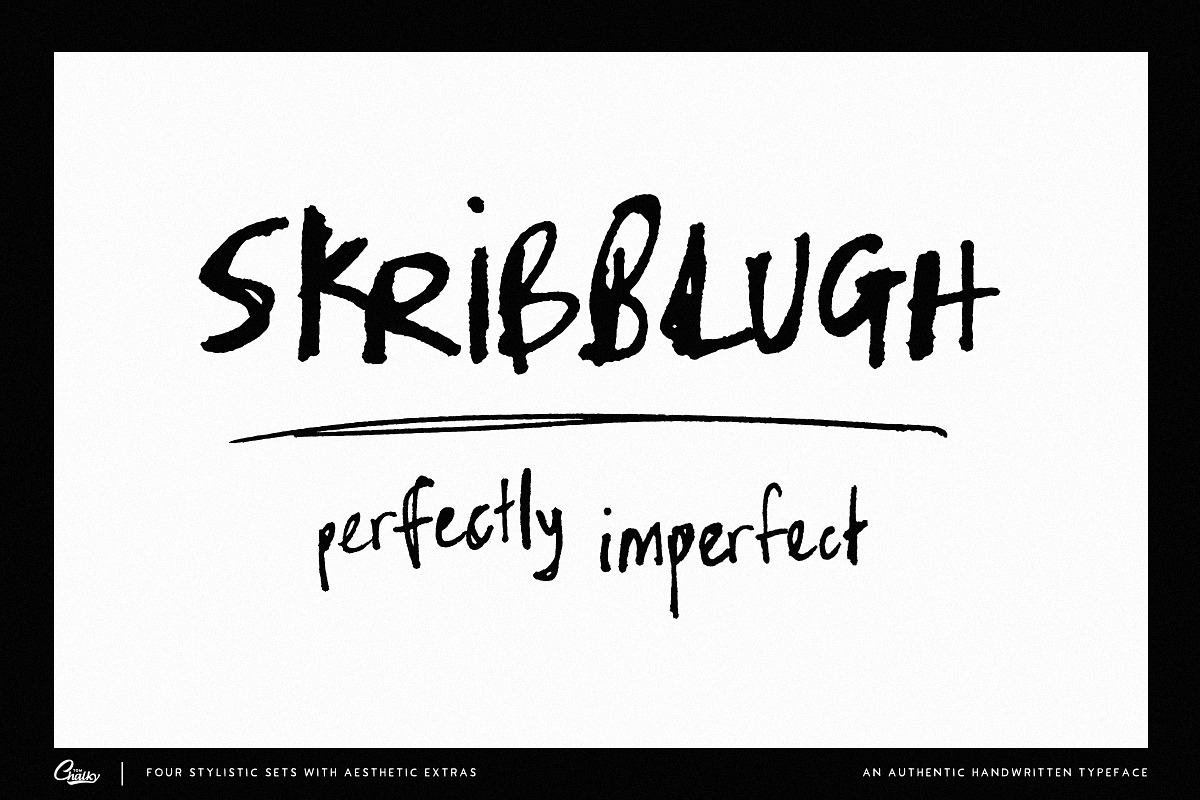
SKRIBBLUGH Font Family Free Download is a dynamic and playful font family that offers a mix of bold, hand-drawn styles with a unique, quirky personality. This font family is perfect for branding, posters, social media content, logos, and creative projects that need a fun and expressive vibe.
With multiple weights and variations, SKRIBBLUGH Font Family Free Download provides versatility, making it suitable for both large display text and smaller body text. Its handmade look adds warmth and charm to any design, making it ideal for projects with a youthful or artistic theme.